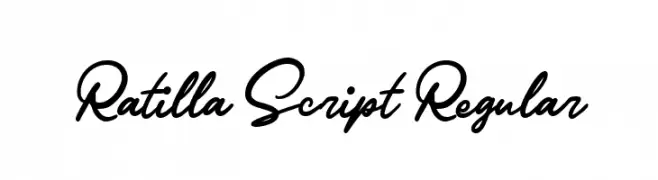
A bold, flowing script font with a dynamic, handwritten style.
A flowing, elegant script font with a handwritten touch.
A fluid, elegant script font with connected strokes and moderate contrast.
A lively and flowing script font with elegant, cursive letterforms.
A bold, dynamic handwritten font with expressive strokes and a fluid style.